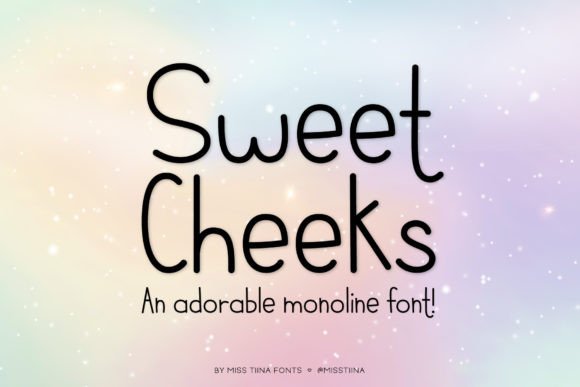
Embrace the playful and whimsical charm of Sweet Cheeks Monoline, a font family crafted with a childlike innocence that captivates the hearts of all who behold it. Designed by the talented Miss Tiina, this script font exudes a lighthearted spirit, making it the perfect choice for projects that seek to evoke a sense of joy and wonder.
Immerse yourself in the world of Sweet Cheeks Monoline, where imagination knows no bounds. Let your creativity soar as you explore the endless possibilities this font offers. Create enchanting children's books that transport young readers to magical realms, where every page is an adventure waiting to be discovered. Design cheerful and playful labels that add a touch of whimsy to your products, capturing the attention of customers with their unique and charming appeal.
With Sweet Cheeks Monoline, transform ordinary stationery into extraordinary works of art. Personalize notebooks, journals, and cards with this delightful font, adding a touch of personality and creativity to your everyday writing. Let your titles shine with a touch of magic, as Sweet Cheeks Monoline adds a captivating element to headings and headlines, drawing readers in with its playful charm.
The versatility of Sweet Cheeks Monoline knows no bounds. Whether you're creating marketing materials, social media graphics, or website designs, this font seamlessly adapts to your vision, adding a touch of whimsy and playfulness that resonates with audiences of all ages. Its monoline structure ensures a consistent and cohesive look, while its carefully crafted glyphs add a touch of elegance and sophistication.
Unleash your creativity and let Sweet Cheeks Monoline be your guide into a world of boundless imagination. Add it confidently to your projects, and you'll be amazed by the results. Sweet Cheeks Monoline is not just a font; it's an invitation to let your inner child shine through, creating designs that bring joy, laughter, and a touch of magic to the world.